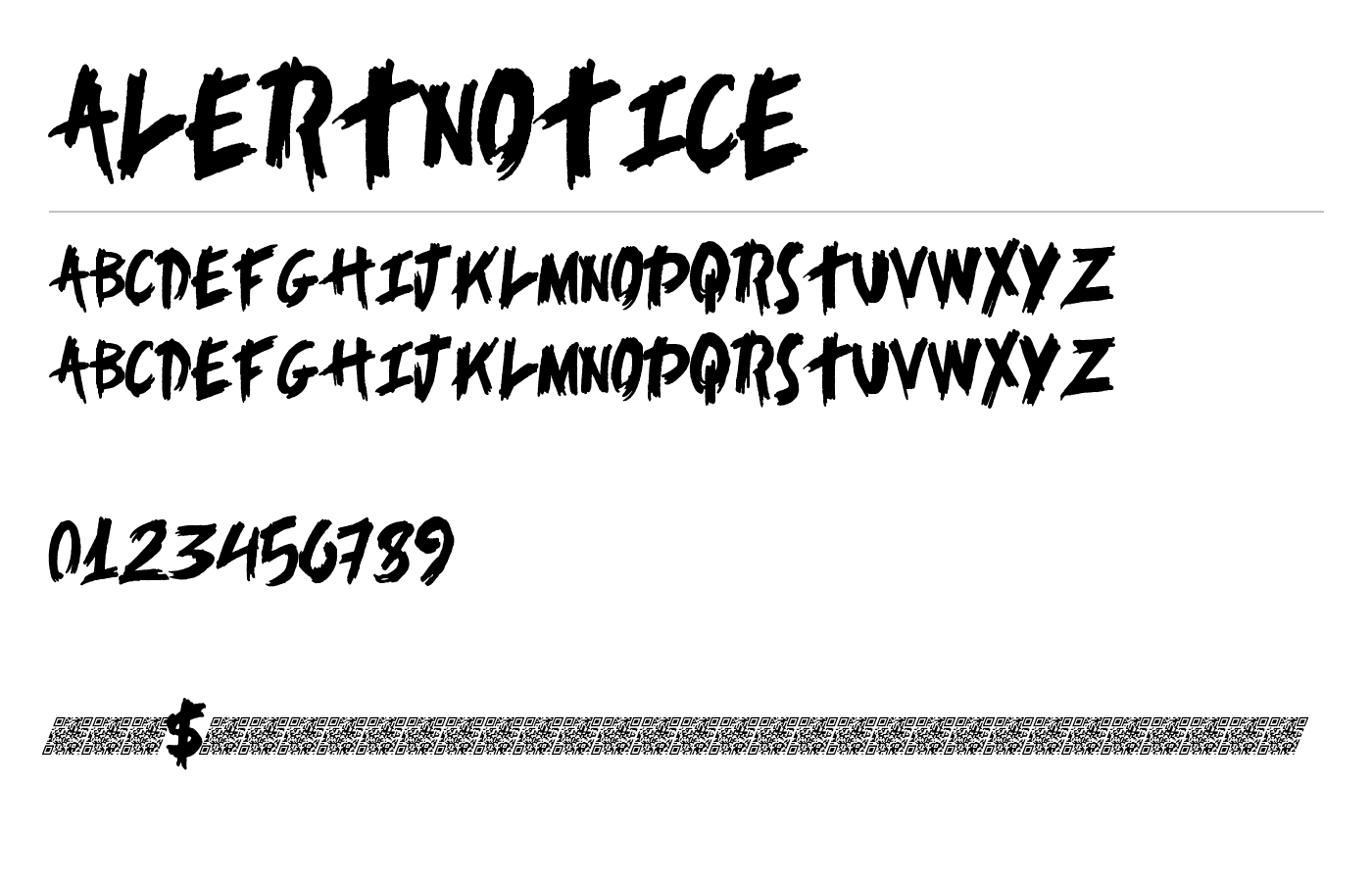
AlertNotice is a bold, hand-drawn brush script font that brings an energetic and raw style to any design. Its rough, uneven strokes and strong visual presence make it perfect for creating striking headlines, posters, or branding that needs a sense of urgency and personality. This font works best when you want to convey a lively, edgy, or creative mood with a bold, informal flair.
AlertNotice Font